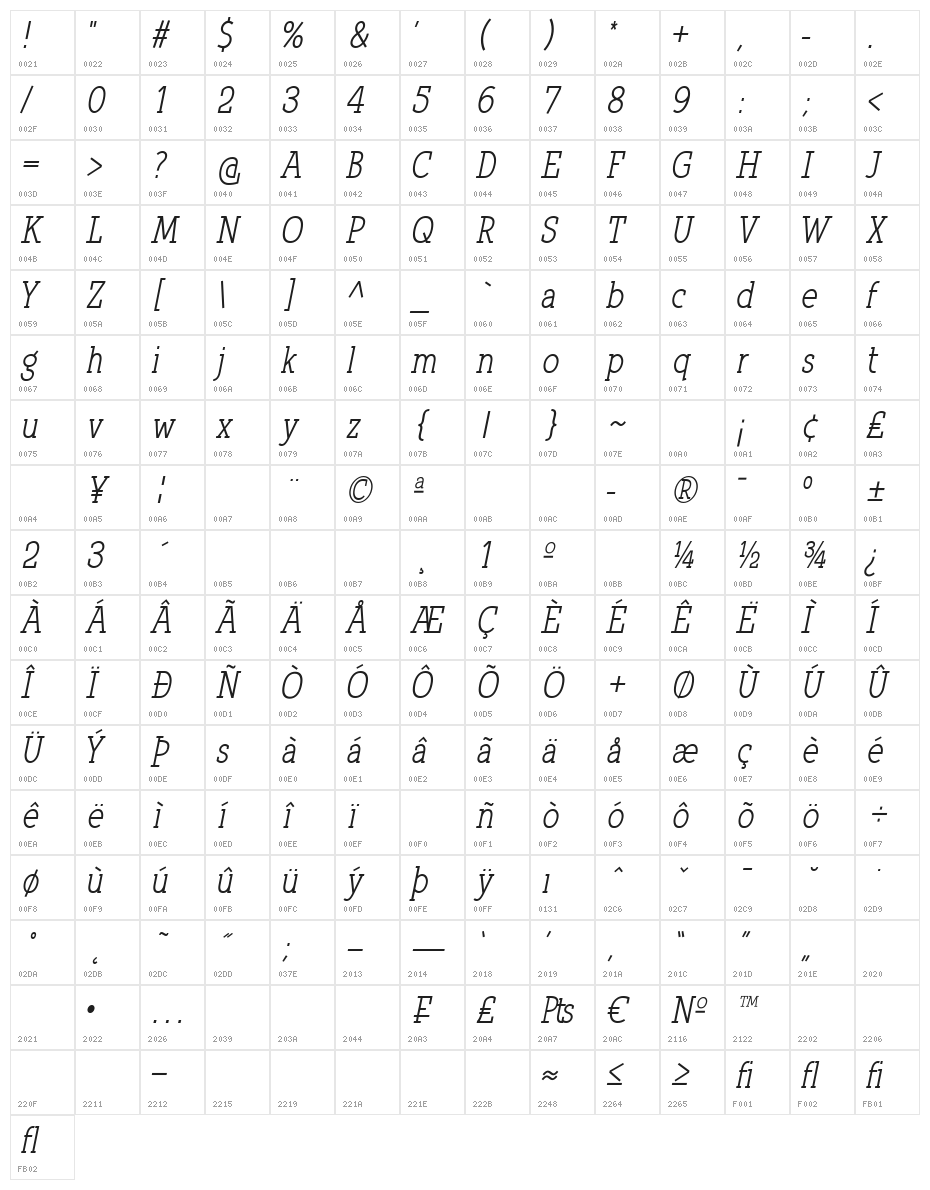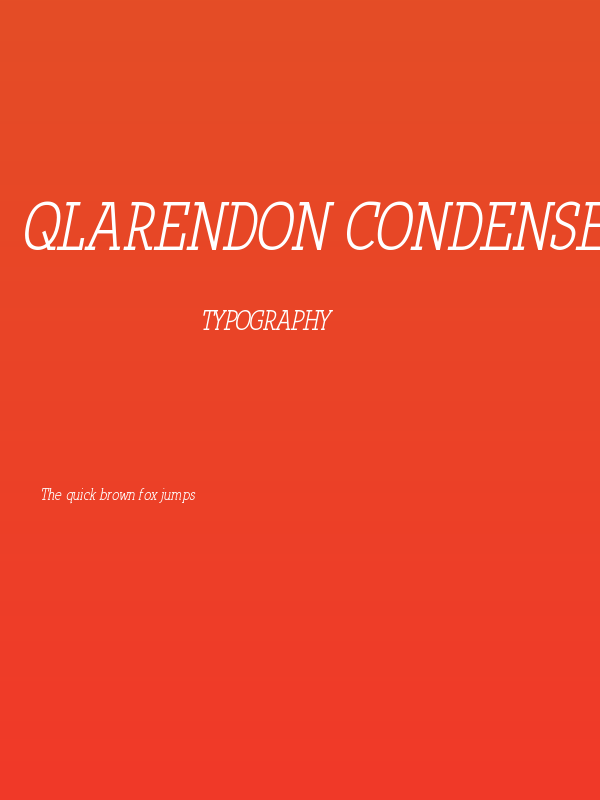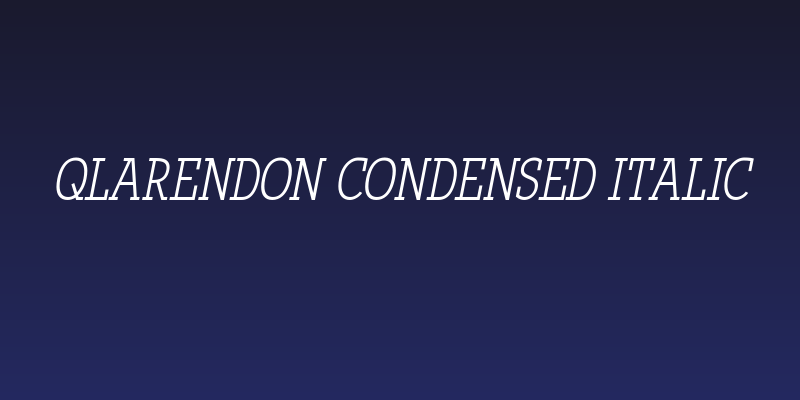
Qlarendon Condensed Italic Font
Qlarendon Condensed Italic Description
This font features a classic serif style with a condensed and italicized form. The characters exhibit a refined elegance, with thin, elongated strokes and subtle curves that enhance readability while maintaining a sophisticated appearance. The serifs are pronounced yet not overly decorative, providing a balance between traditional and modern aesthetics. The italic slant adds a dynamic and fluid quality, making it suitable for both formal and creative applications. The numerals and special characters are designed with the same attention to detail, ensuring consistency across all glyphs.
| Proposed Projects | Ideal for editorial design, book covers, elegant invitations, and branding materials that require a touch of sophistication. |